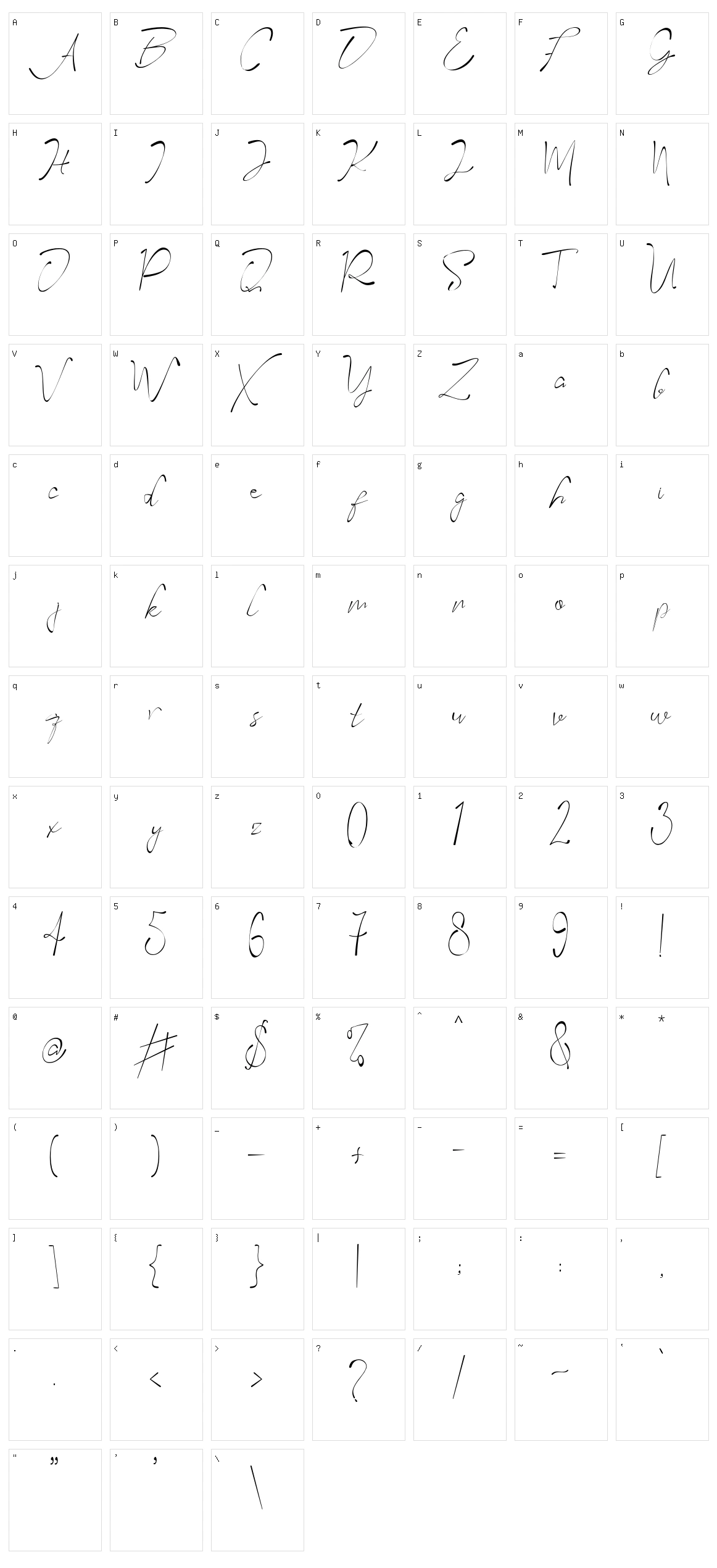
The free font Arra Yasmine is carefully designed by Wras Studio, showcasing a thoughtful balance of creativity and usability and falls under the Script font style. When you download the ZIP file, it contains only 44.34 KB of font files, making it lightweight and quick to download. Please review the license details below to understand permitted usage and distribution rights. If license information is not available, we recommend using this font for personal projects only or contacting the author directly for commercial usage permissions.